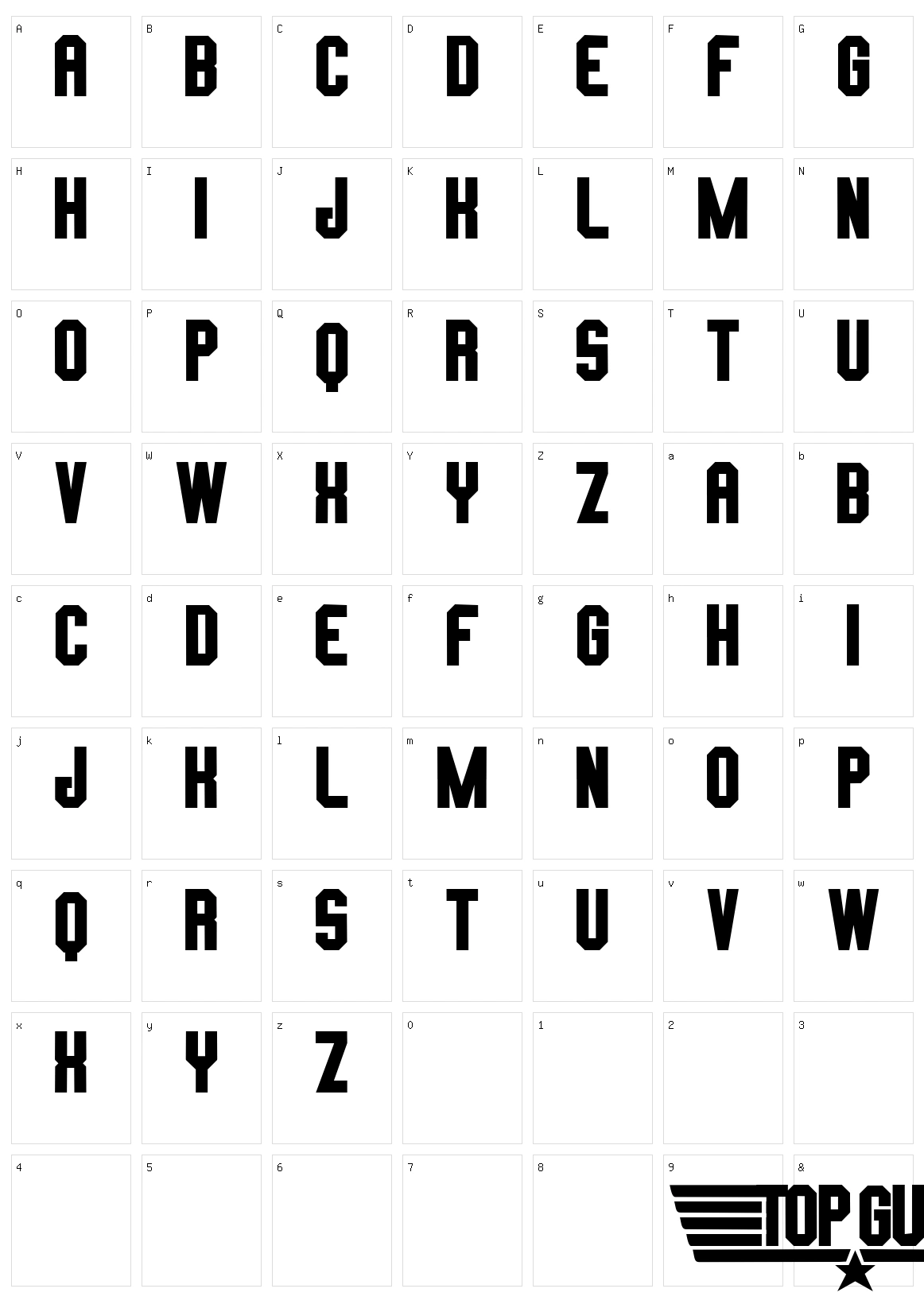
Top Gun
x TOP GUN FONT x
TOP GUN font: direttamente dal film diretto da TONY SCOTT e interpretato da TOM CRUISE, il font inedito per tutti
gli estimatori del film. Da notare il ritocco necessario in Photoshop per conferire, alla titolazione, l'originale bordatura.
TOP GUN font: directly from the Best movie by TONY SCOTT, with TOM CRUISE
the original font for all lovers. Use ADOBE Photoshop for the original border from title.